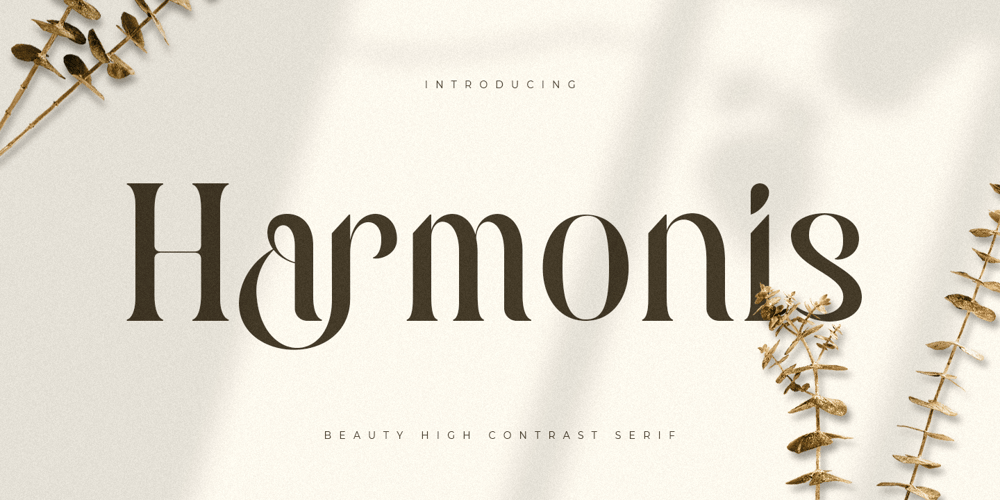
Harmonis Style Font Family was designed by Zamroni Hamzah and published by Sensatype Studio. Harmonis Style contains 1 styles and family package options. A Serif font that we created special for beauty branding needs, with extra ligatures in unique shape will be ready to add value of your brand. It so nice to leverage designer or product owner that need solutions to make their design look more beauty and modern. And specially for Harmonis font, We prepared any ligatures characters to help you create unlimited variations for your creative needs.Harmonis Serif font ready with: Any options to get creative variations (combination of Ligatures) Preview as a inspirations that you can do with Harmonis font Ready with Lowercase and Uppercase characters Wish you enjoy our font. ๐